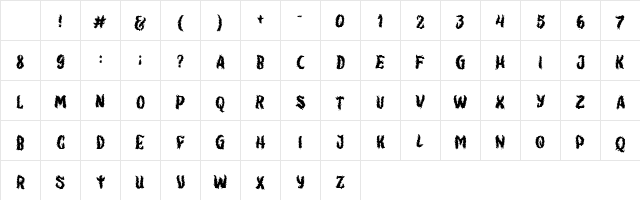
Complete Firestor Regular glyph index. Displaying only characters natively supported by Firestor Regular font.
Firestor is a composed and adaptable typeface that performs quietly and consistently across a wide range of design contexts.